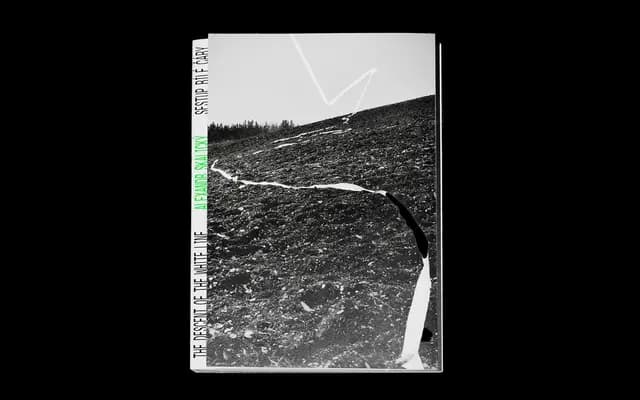
A variable monospaced typeface from Pizza Typefaces with axes spanning weight and width, offering alternate letterforms for key characters via OpenType features.
Shreck ships as a variable font with controls for weight, width and monospace, giving designers a single file capable of running from text weights to heavier display settings. Alternate forms for characters such as g, a and R are accessible via OpenType features. The three named instances, Regular, Medium and Bold, anchor the range but the variable axes allow finer steps between them.
Shreck is a monospaced typeface offered as a variable font with axes for weight, width and monospace, placing it firmly in the mono category with display-oriented flexibility.